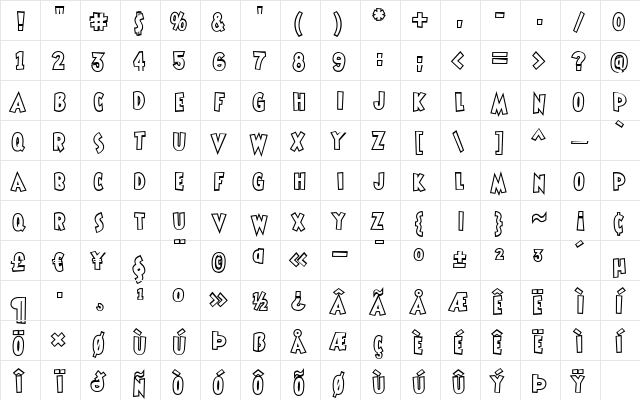
ShermlockOpen Regular
Design Context for ShermlockOpen Typeface
ShermlockOpen is a composed and adaptable typeface that performs quietly and consistently across a wide range of design contexts.
Pro Tip: Pair ShermlockOpen with a font of contrasting weight or personality to build a more expressive typographic hierarchy.